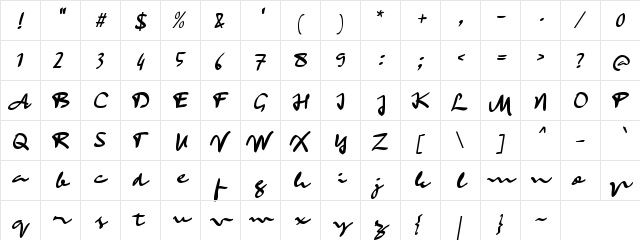
a Apotik Regular
Regular ·  Wahyu Eka Prasetya ·
DesignerWahyu Eka Prasetya
Design Context for a Apotik Typeface
a Apotik is a composed and adaptable typeface that performs quietly and consistently across a wide range of design contexts.